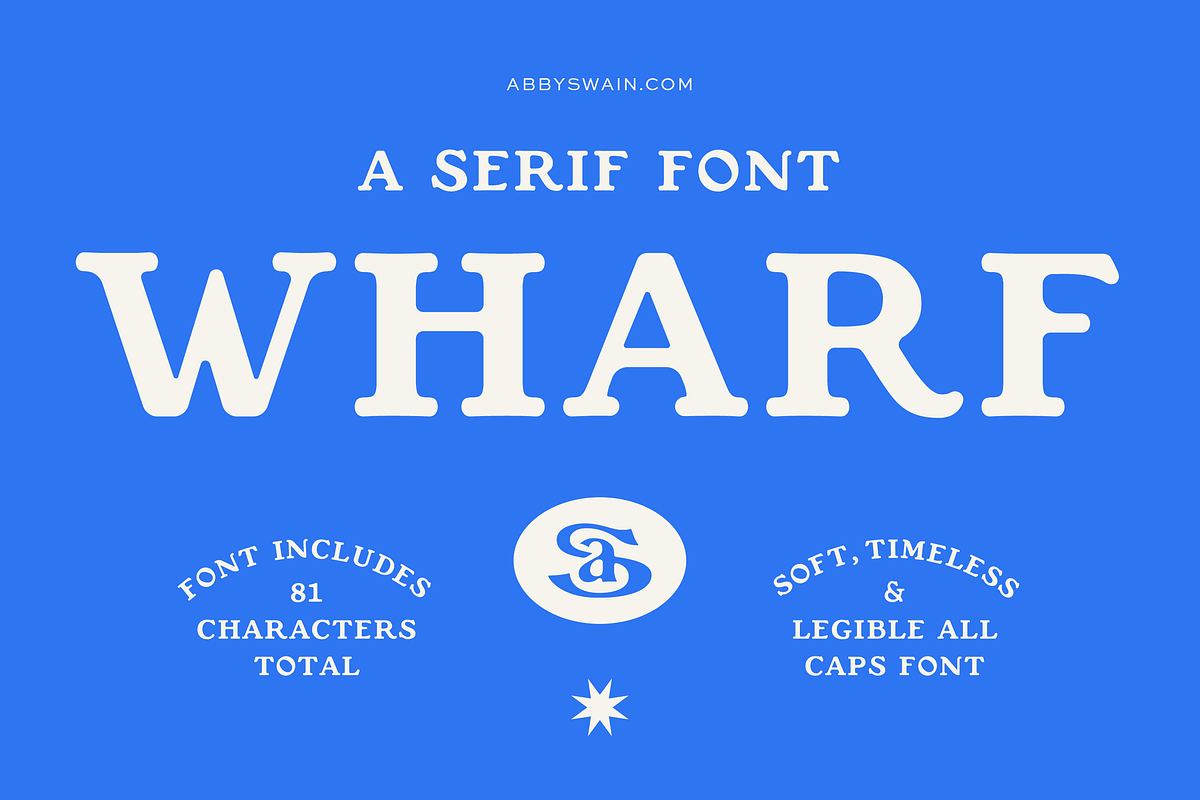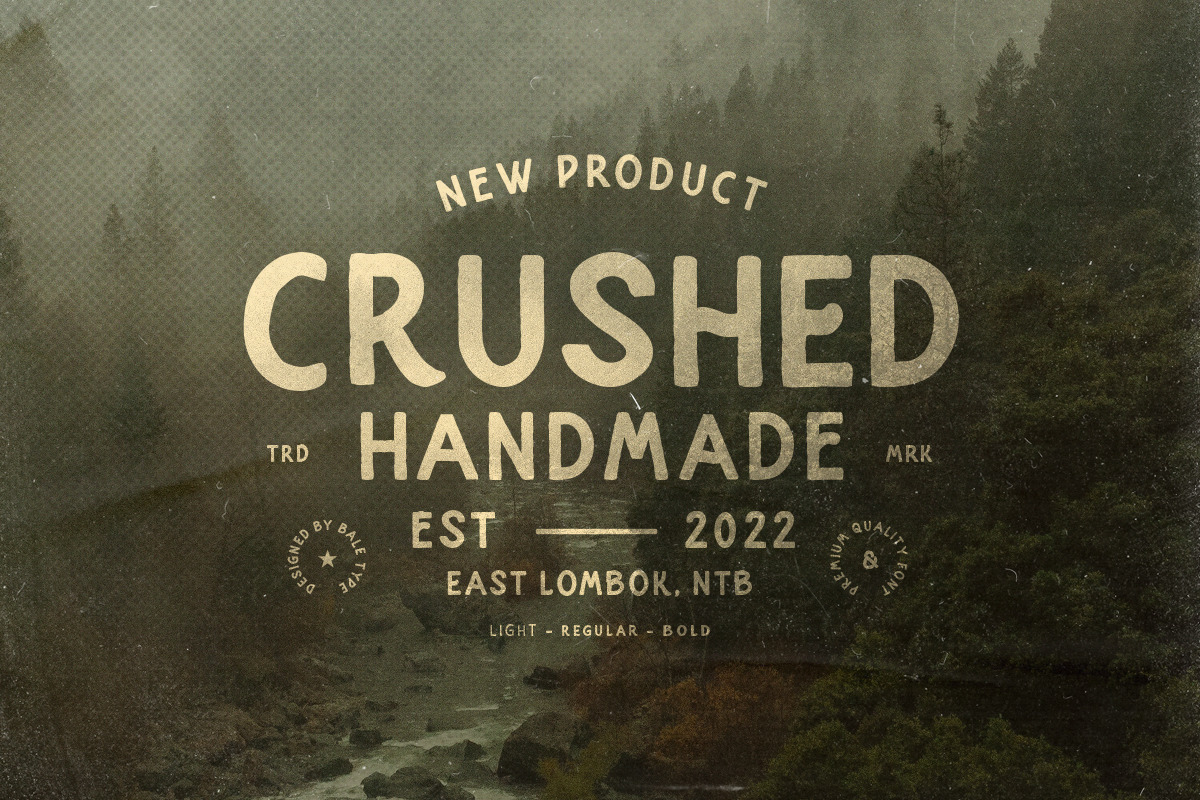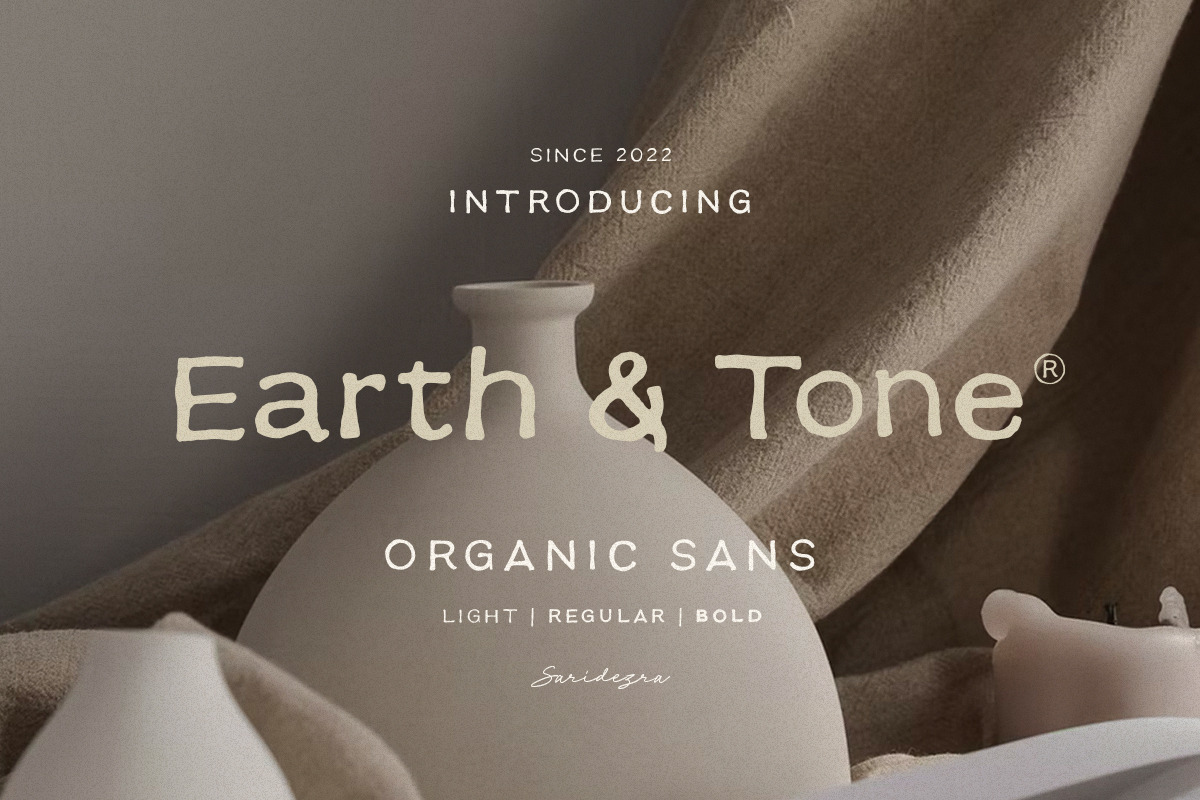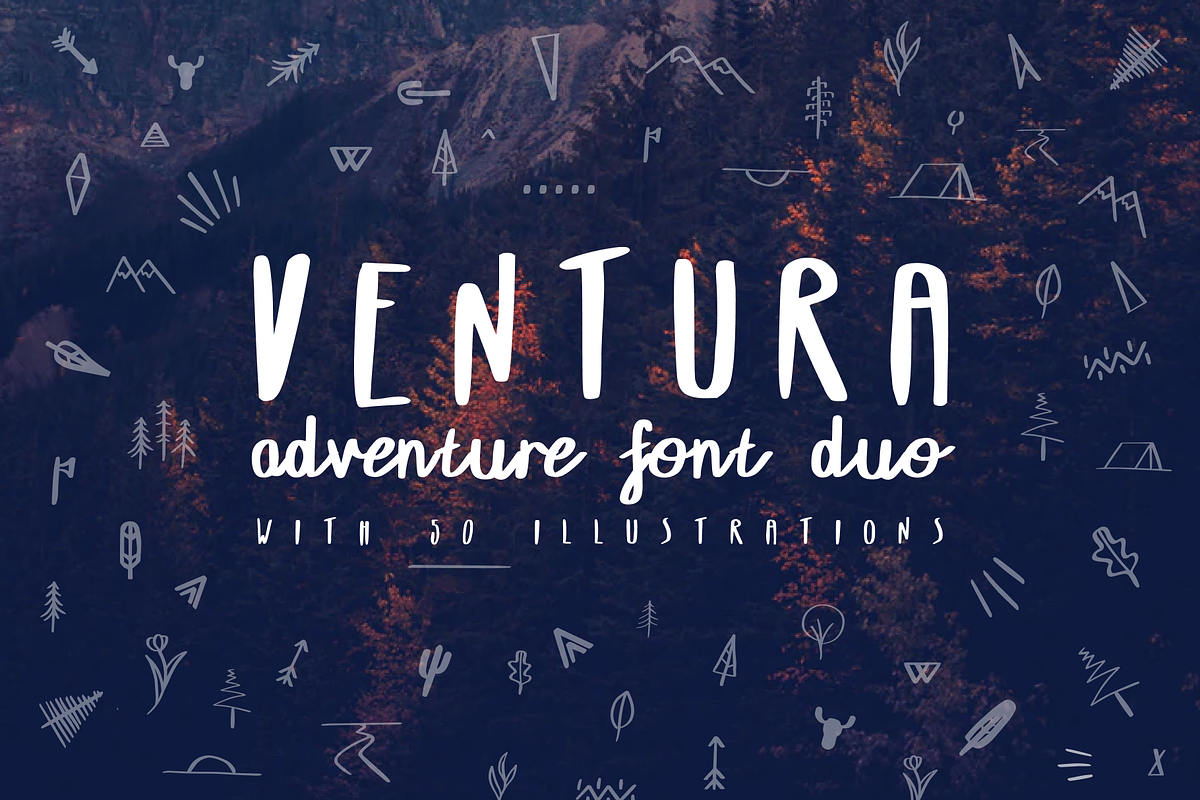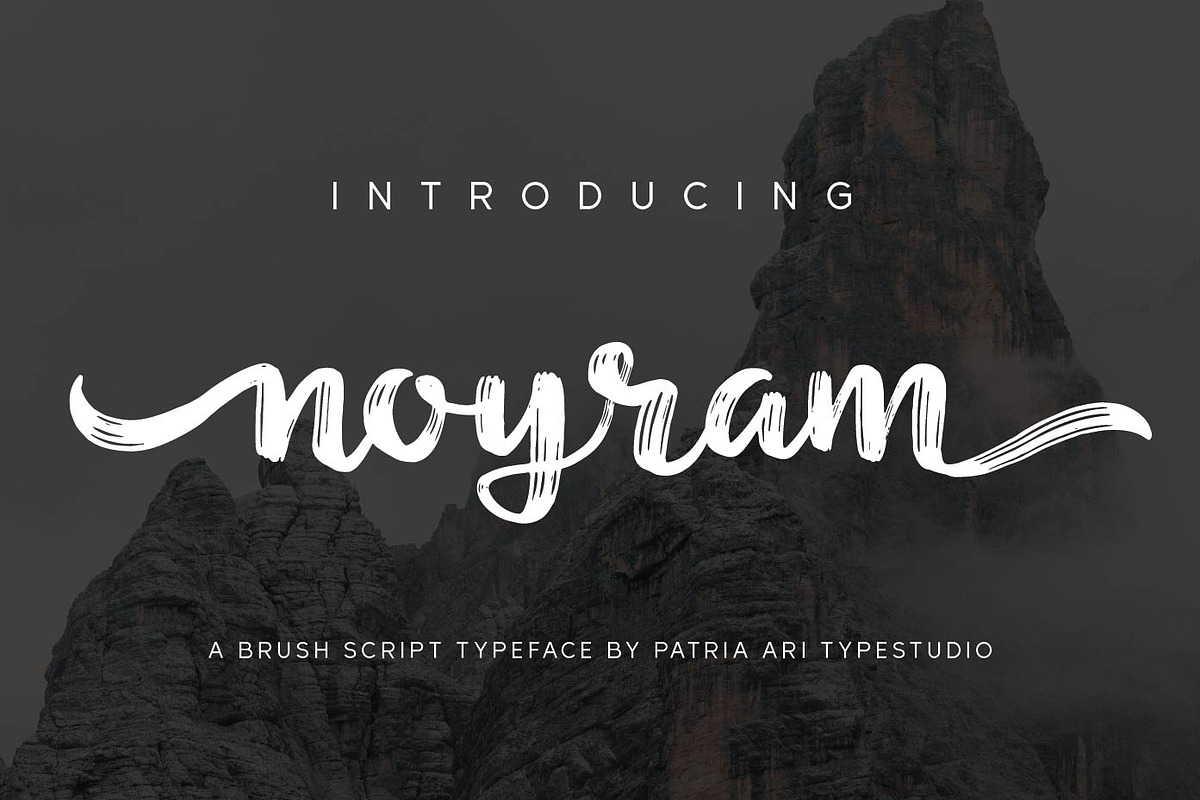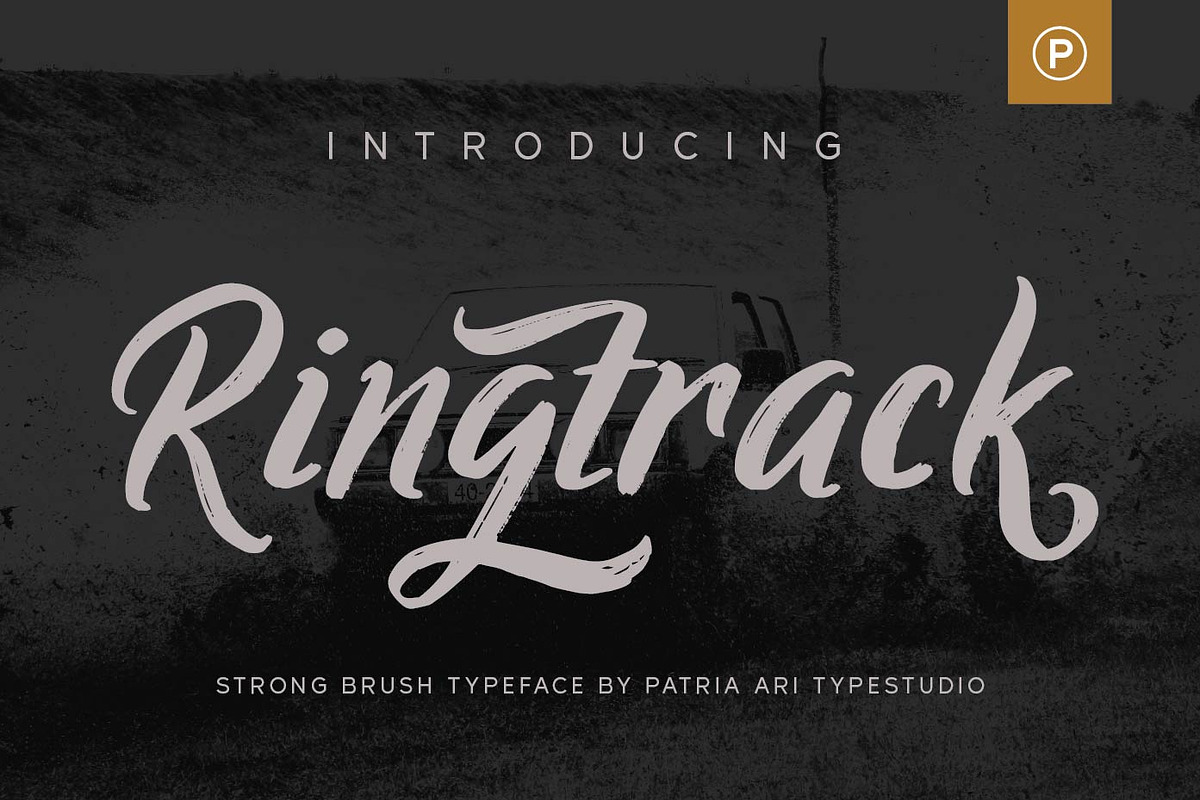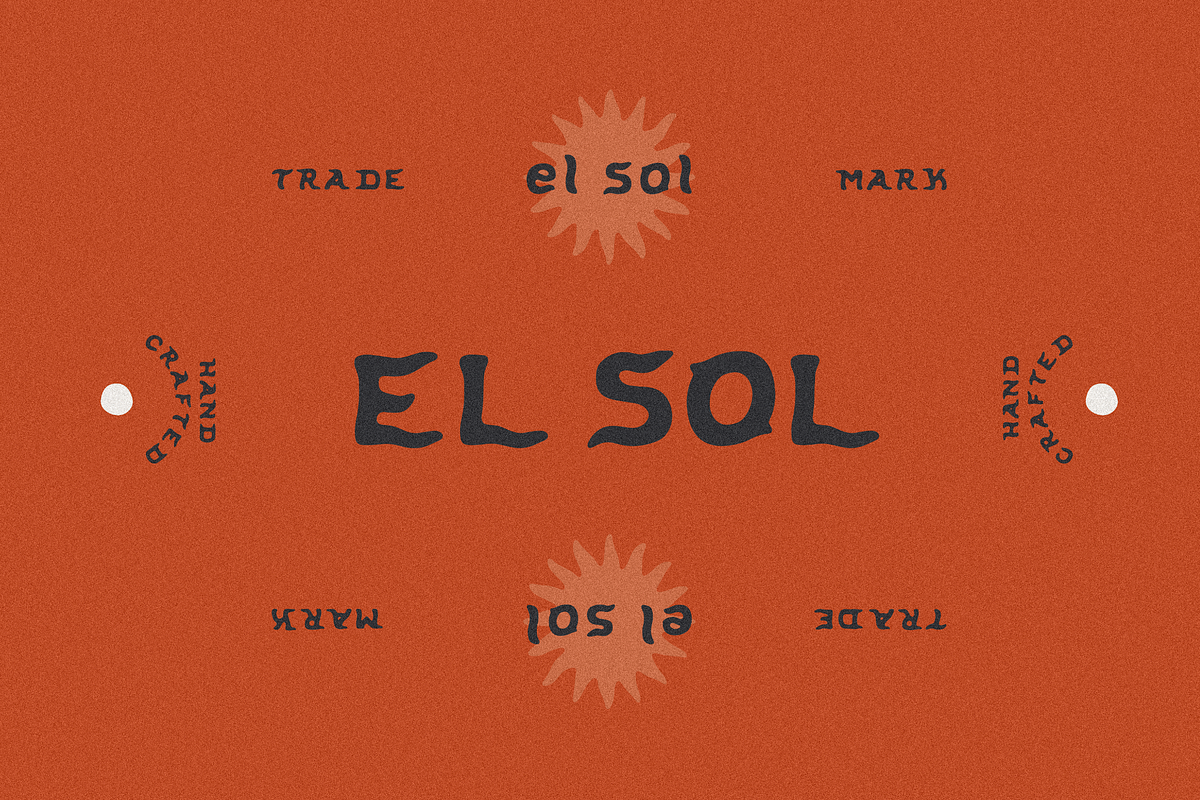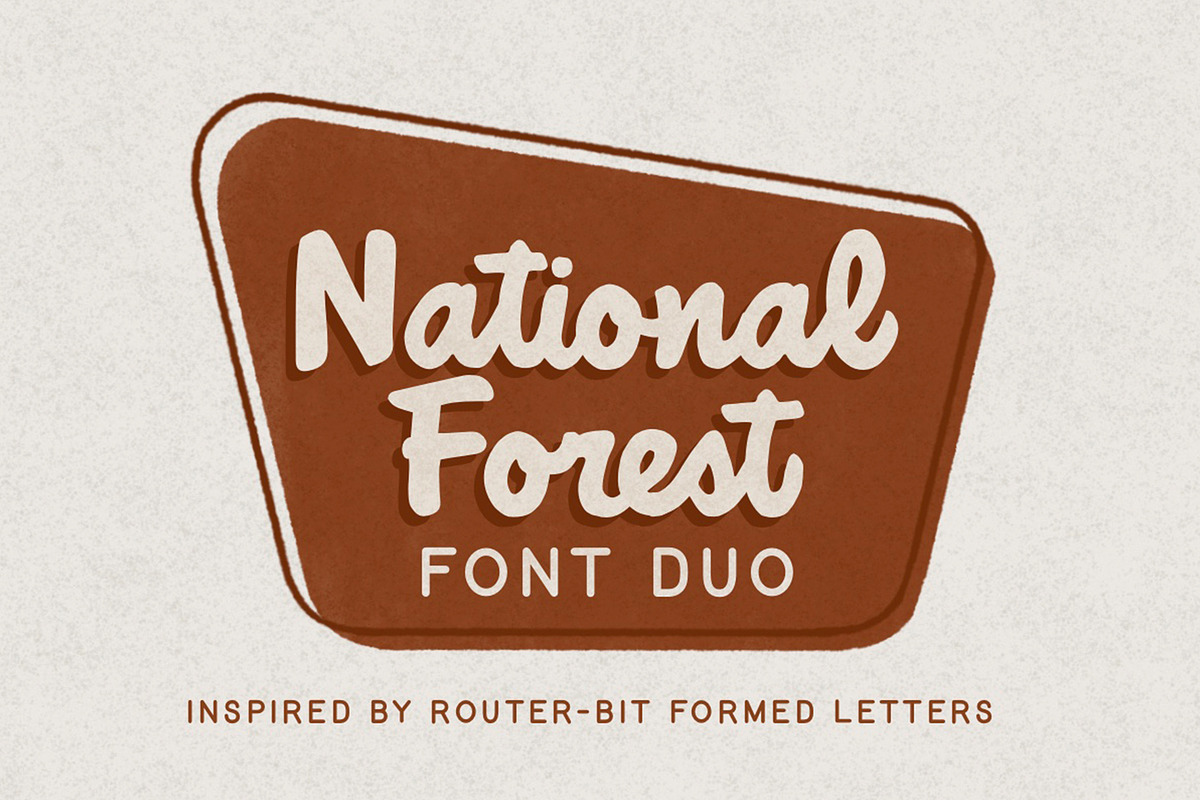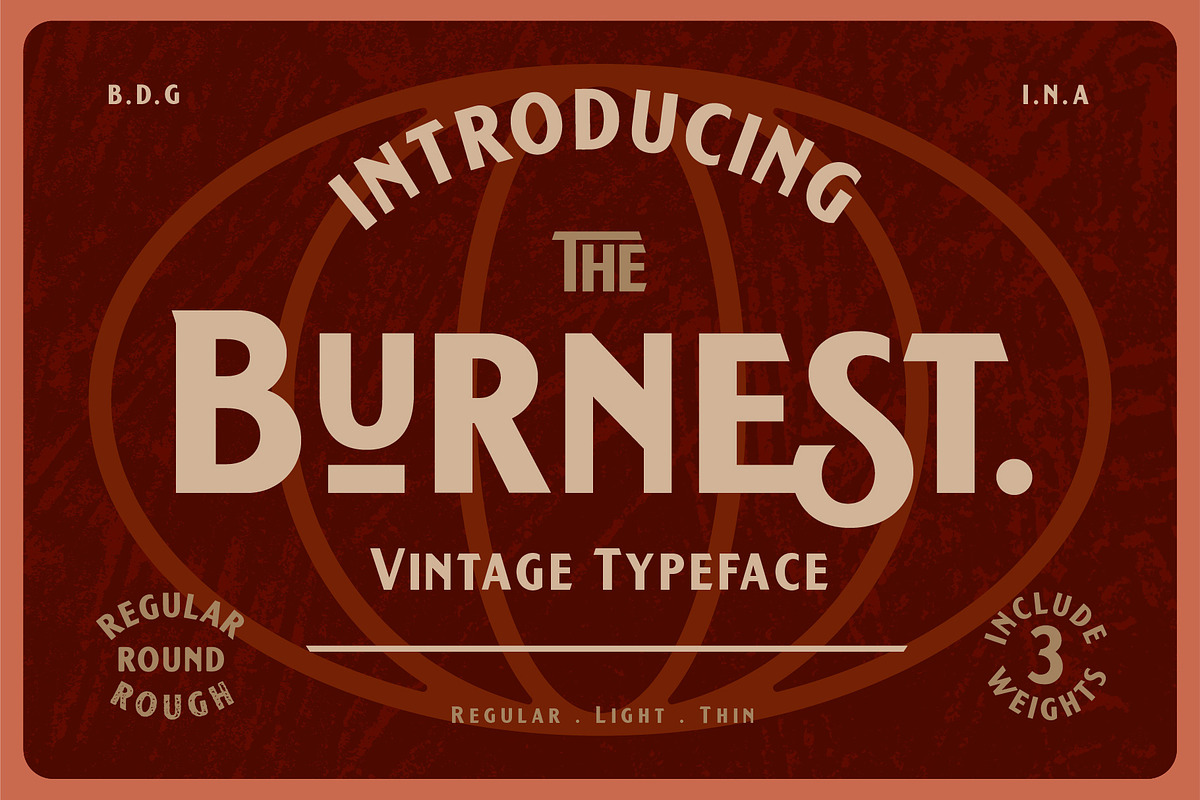
Best camping fonts
9+ Best Camping Fonts: Explore Nature-Inspired Typography
Camping enthusiasts, rejoice! There’s nothing quite like the thrill of sleeping under the stars, surrounded by the tranquility of nature. From crackling campfires to serene lakeshores, camping fonts capture the essence of outdoor adventures in every letter.
These fonts are more than just typographic styles; they’re gateways to the great outdoors, evoking the spirit of exploration and discovery. Whether you’re planning a wilderness-themed event or designing an outdoor magazine, the right camping font sets the perfect tone.
In this comprehensive guide to the best camping fonts, Adam Enfroy explores a range of typefaces suited for all your outdoor projects. From rugged and adventurous to whimsical and playful, each font brings its own unique charm to the table.
Join us as we delve into the world of camping fonts, uncovering their versatility, functionality, and aesthetic appeal. Whether you’re a seasoned camper or just someone who loves the wilderness, there’s a font here to ignite your sense of adventure.
1. El Sol Font Camping Font
El Sol Font embodies the warmth and radiance of the sun, drawing inspiration from the vibrant landscapes of the Southwest and the rich cultural heritage of Mexican folk art. Crafted with meticulous attention to detail, this handcrafted typeface captures the essence of outdoor adventures with its playful yet sophisticated design.
With a full range of uppercase and lowercase letters, along with numbers and basic punctuation, El Sol offers versatility for a variety of design projects. Whether you’re creating signage for a rustic campground or designing promotional materials for an outdoor event, this font brings a touch of sunshine to every project.
2. Crushed – Handmade Font
Crushed – Handmade Font captures the rugged essence of outdoor adventures with its organic, rough-hewn appearance. This versatile sans-serif family offers light, regular, and bold weights, providing flexibility for various design projects.
Perfect for logotypes, quotes, and any creations that demand a touch of adventure and outdoor spirit, Crushed features distinct uppercase and lowercase characters that can be used individually or combined to craft unique compositions. Additionally, this font supports multiple languages, making it an ideal choice for international projects.
3. Burnest Camping Font
Burnest Font is the result of a collaboration with Renov Olivian, an expert in hand-drawn lettering. Together, they crafted a vintage-inspired typeface with a robust identity tailored for outdoor designs, camping themes, wilderness escapades, adventures, and masculine aesthetics.
Featuring three weights—Thin, Light, and Regular—each weight offers three distinct styles: Clean (sharp corner), Round (rounded corner), and Rough (rough version). With a total of nine fonts to choose from, Burnest provides ample options to complement your design style and add character to your projects.
4. Noyram – Brush Script Fonts
Noyram – Brush Script Font presents a robust brush script typeface adorned with captivating alternate glyphs.
Ideal for various design endeavors, Noyram shines in branding projects, logos, social media posts, advertisements, product packaging, labels, and beyond. Its versatility makes it a go-to choice for designers seeking a dynamic and expressive font for their camping-themed creations.
5. National Forest Camping Font
National Forest Font embodies the essence of the National Park Service signs crafted with a router bit. This font duo captures the timeless nostalgia of these signs, bringing their rustic charm into the digital realm.
With its quirky and retro style, National Forest exudes a distinctive appeal enhanced by its natural imperfections. The synergy between the script and print fonts makes it an excellent choice for branding, display purposes, or marketing materials, adding a touch of vintage flair to any camping-themed project.
6. Wharf Font
Wharf Font embodies a harmonious blend of modernity and timelessness in its serif display style. Drawing inspiration from the typography found in early 20th-century steamship pamphlets, Wharf exudes a sense of nostalgia while maintaining legibility and sophistication.
With its all caps design comprising 81 characters, including numbers, punctuation, and currency symbols, Wharf offers versatility for various design purposes. Whether crafting unique type layouts, designing logos, or creating eye-catching packaging, this font is a compelling choice for adding a touch of elegance to camping-themed projects.
9. Ringtrack – Rough Brush Fonts
Ringtrack – Rough Brush Fonts embodies boldness and dynamism with its sharp, robust brush strokes.
This versatile typeface offers variable swashes, allowing for creative experimentation and customization.
Ideal for branding projects, apparel design, logos, social media content, advertisements, and product packaging, Ringtrack adds a rugged yet stylish touch to any project.